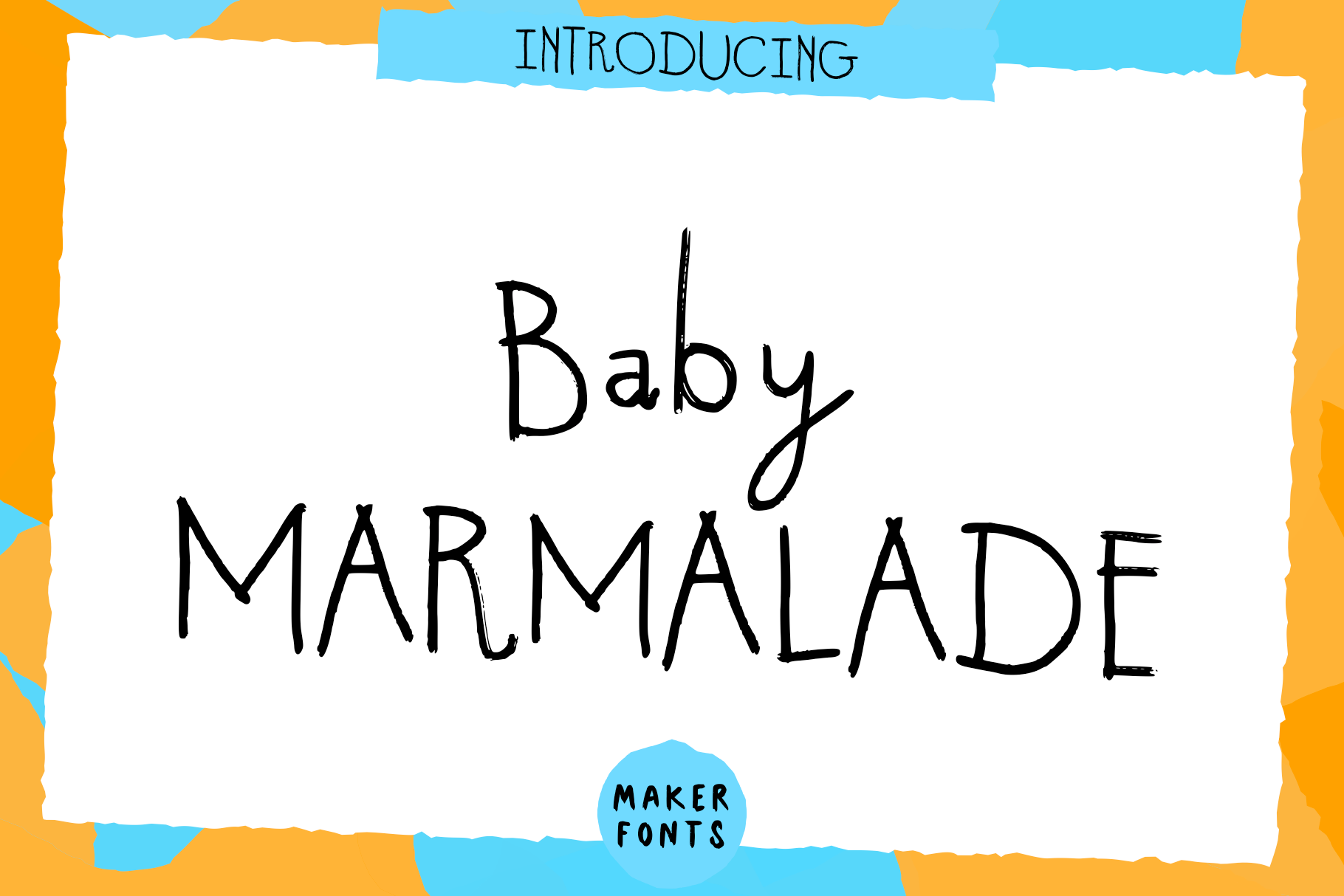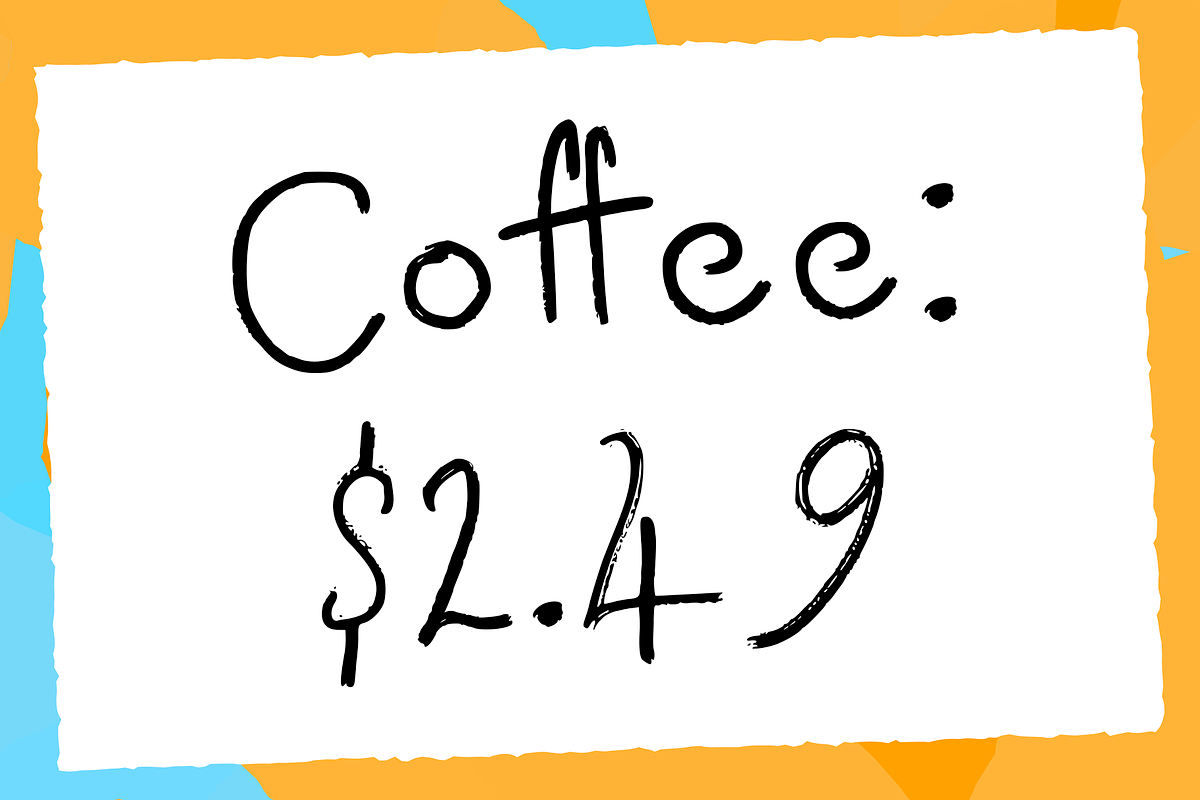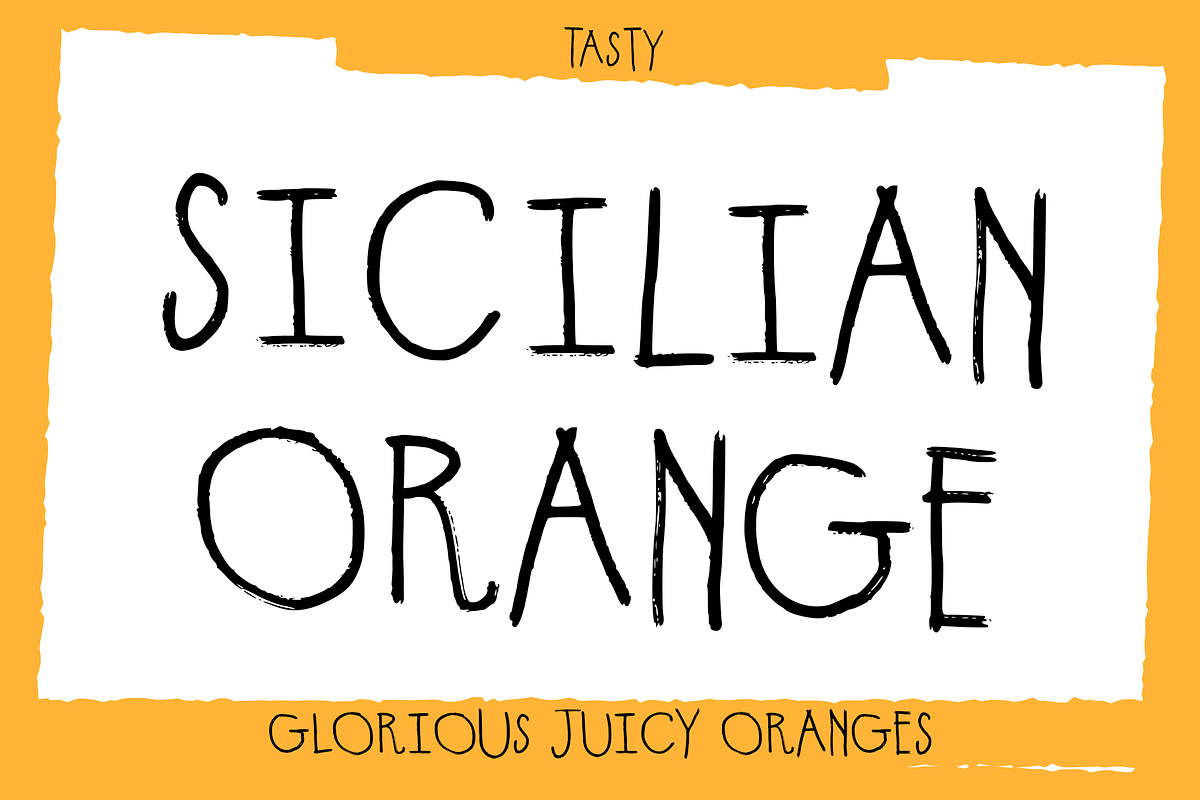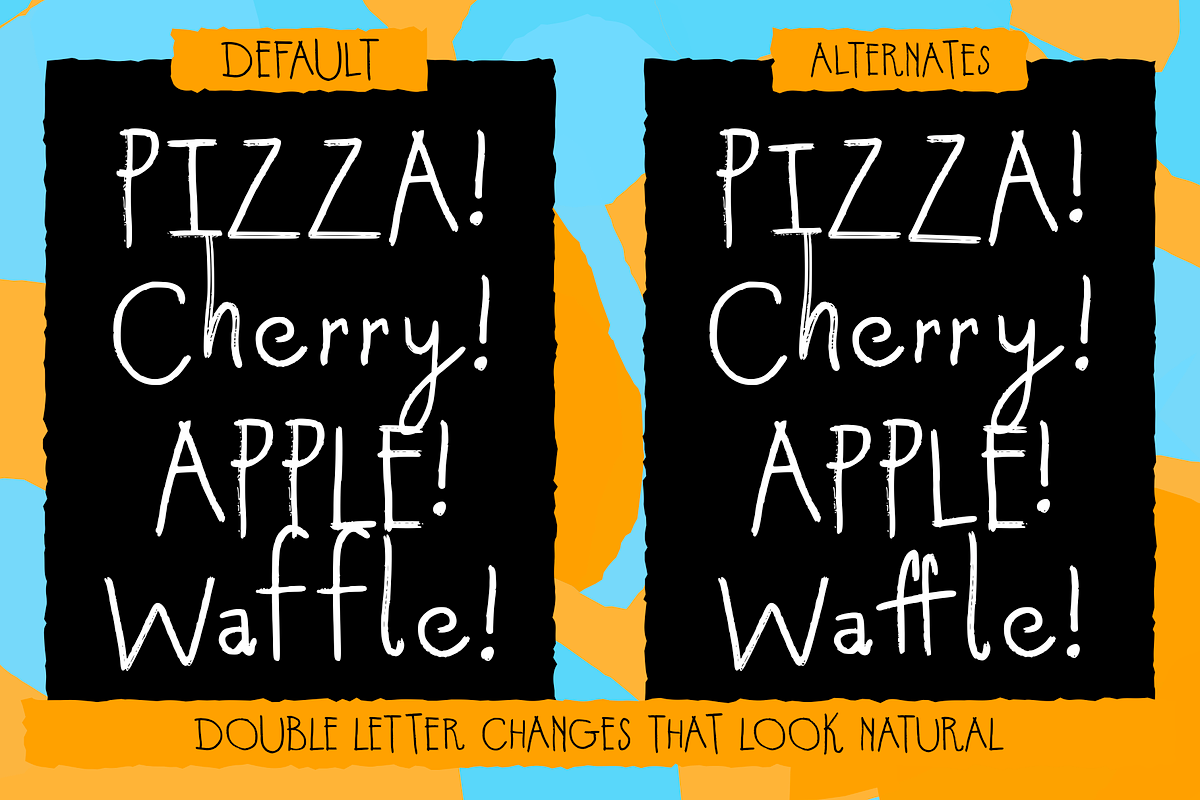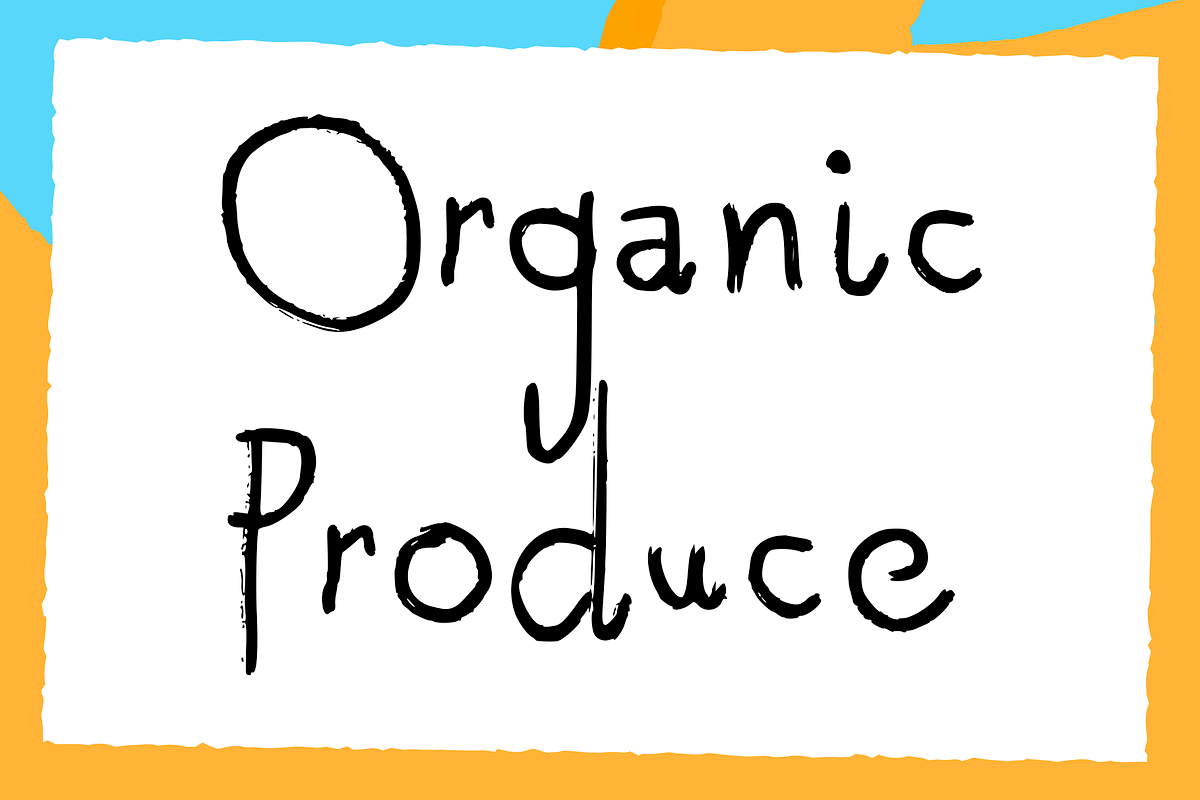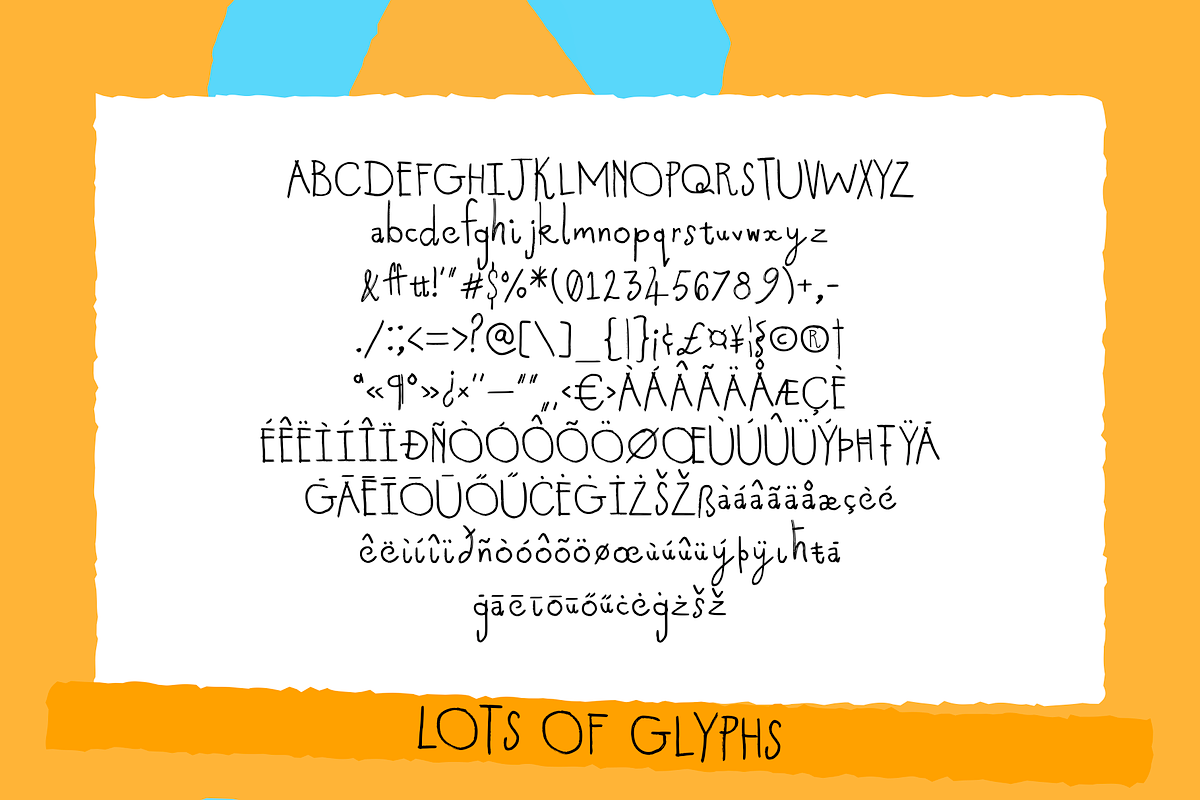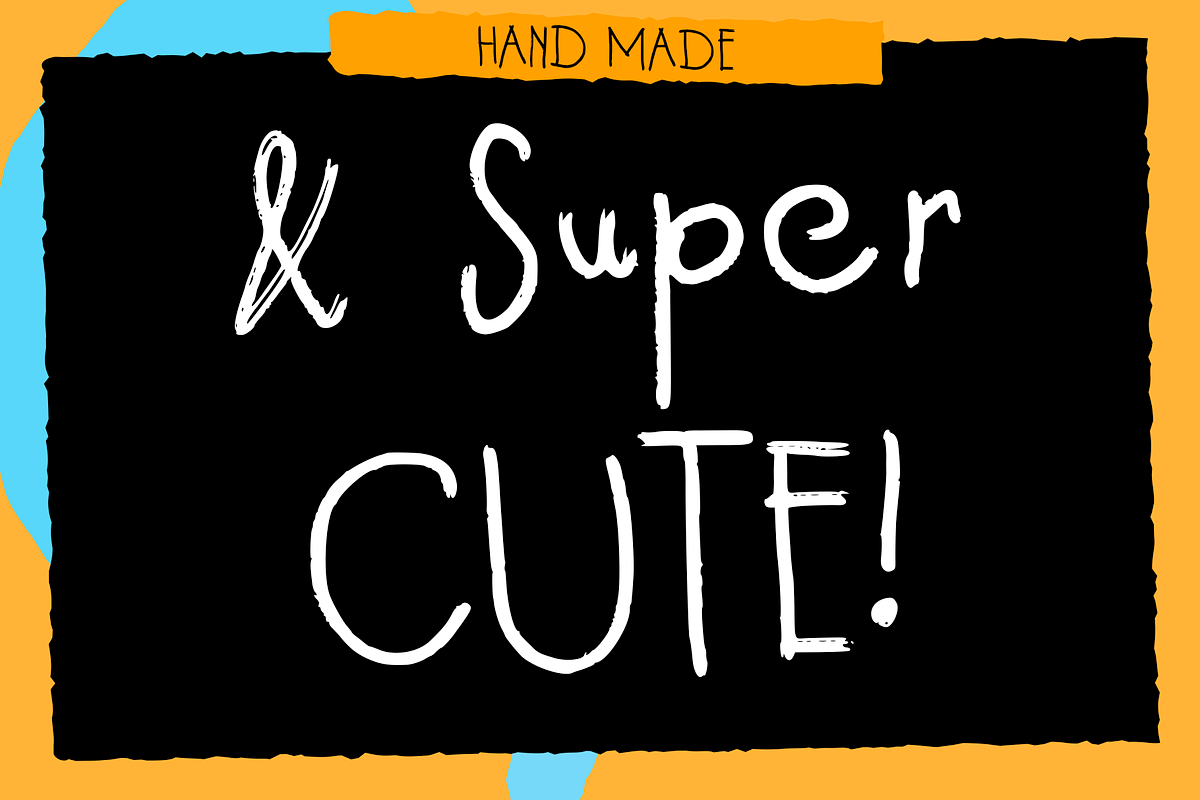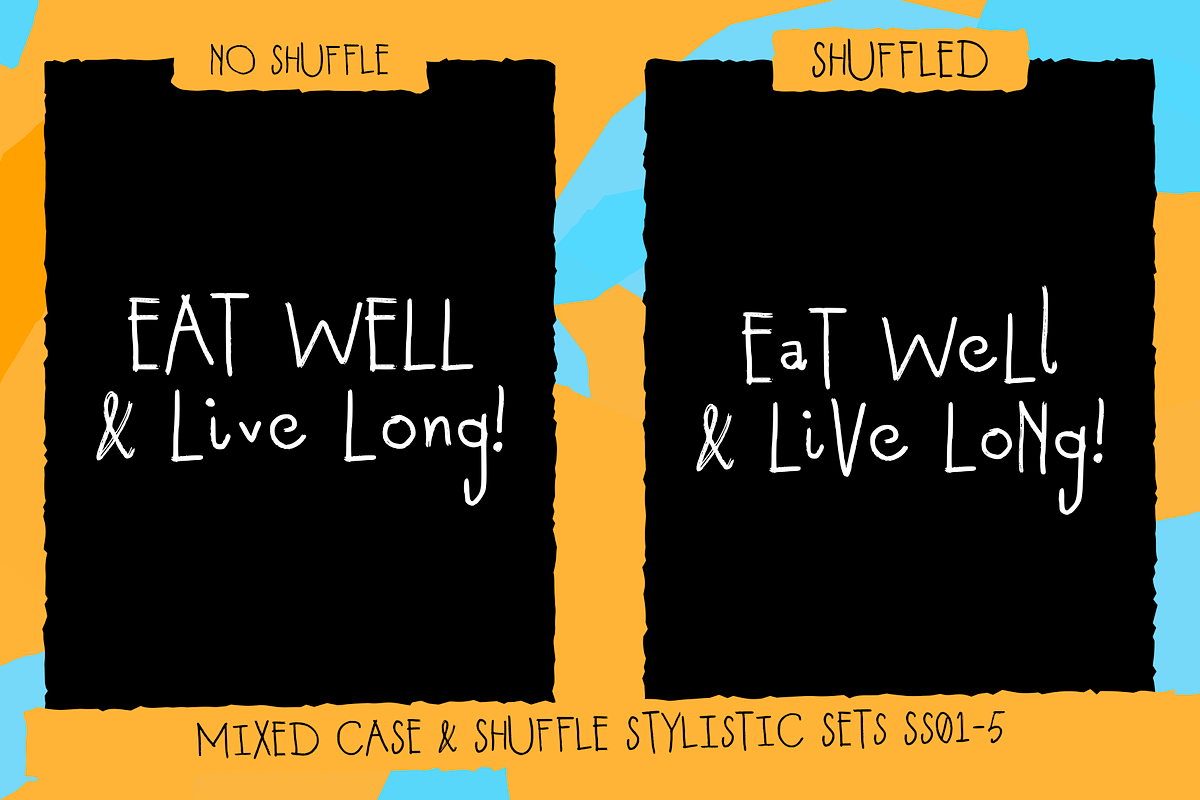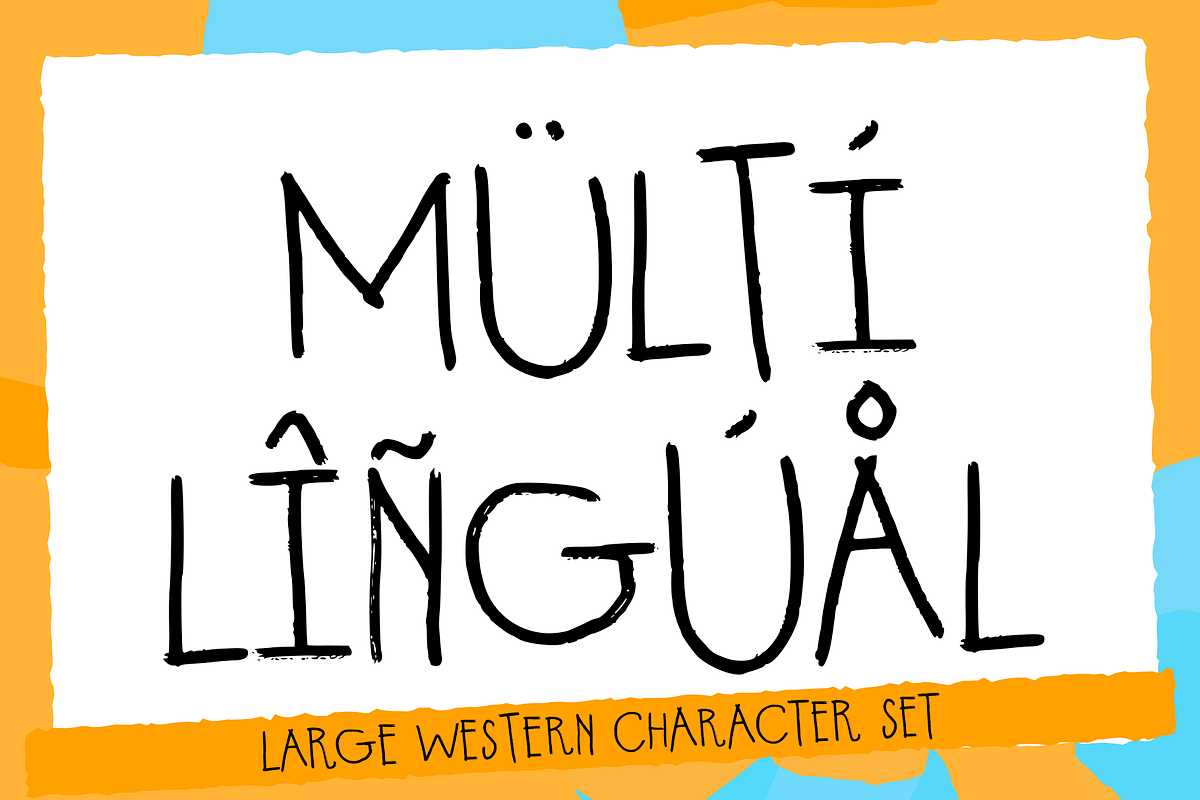
Baby Marmalade Handmade Font
MF Baby Marmalade is a cute new handmade font from Maker Fonts.
Perfect for greetings cards, packaging, and any use where a cute and personal touch is needed. Let MF Baby Marmalade bring the cuteness in your next project!
The font comes with a large western character set and lots of glyphs.
Opentype features include: Ligatures, Contextual Alternates, and Stylistic Sets (ss01-ss05) that all combine to create a natural handwritten texture.